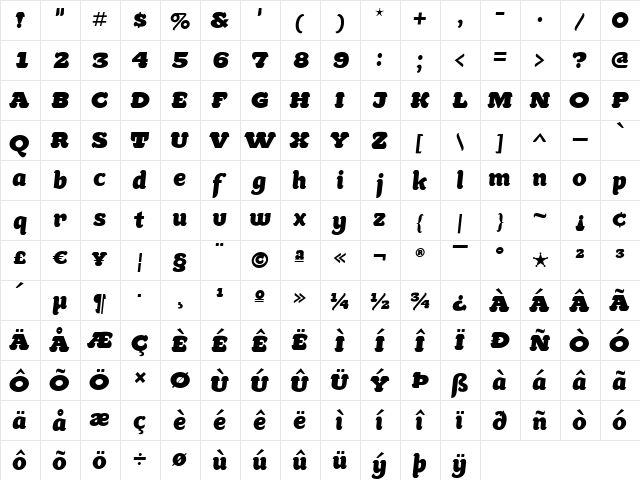
ManifestDestiny Italic Regular
| Foundry | Jack Usine, SMeltery Fonts |
| Designer | Jack Usine |
Design Context for ManifestDestiny Italic Typeface
ManifestDestiny Italic offers clean, dependable letterforms without strong stylistic allegiance, making it a practical choice for designers who need flexibility. The dynamic lean of this cut emphasises speed and emphasis in any layout.
Pro Tip: Use ManifestDestiny Italic for emphasis, pull quotes, and subheadings where its slanted energy can add rhythm to the layout.